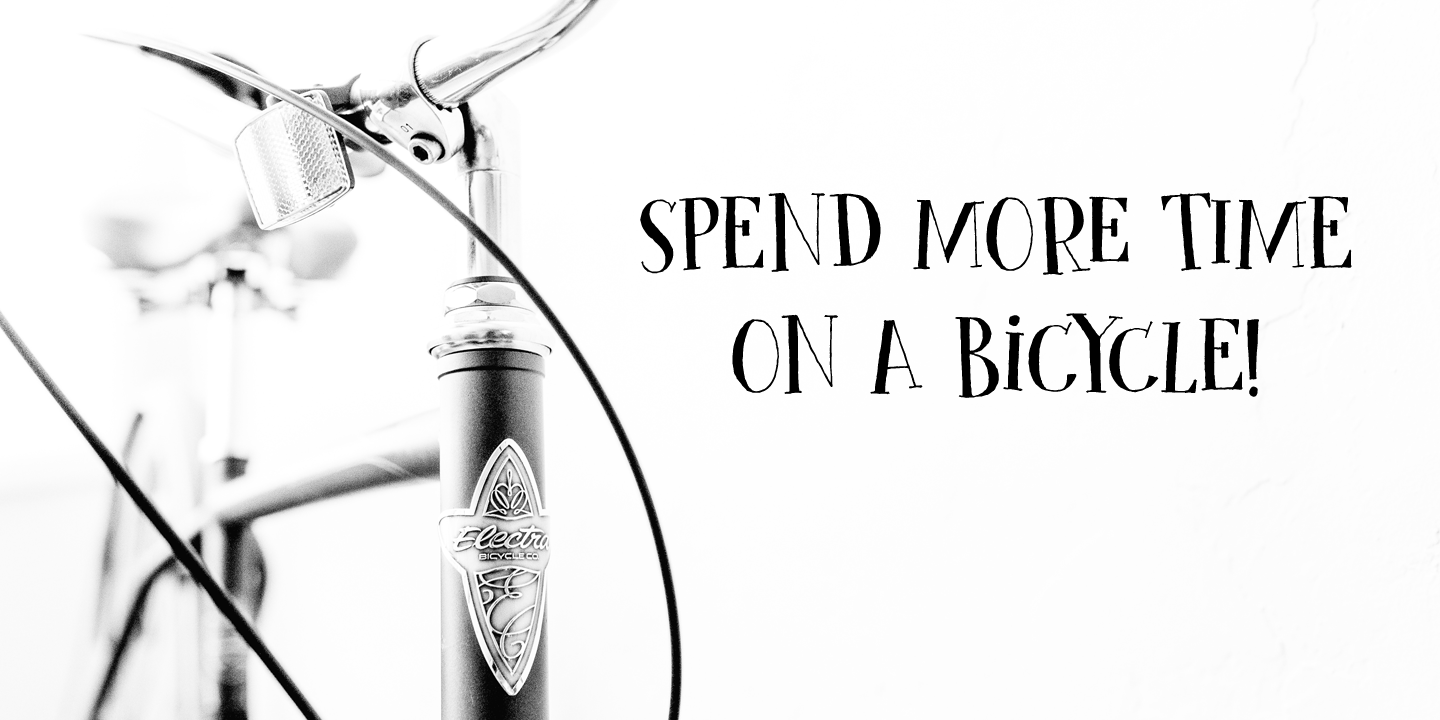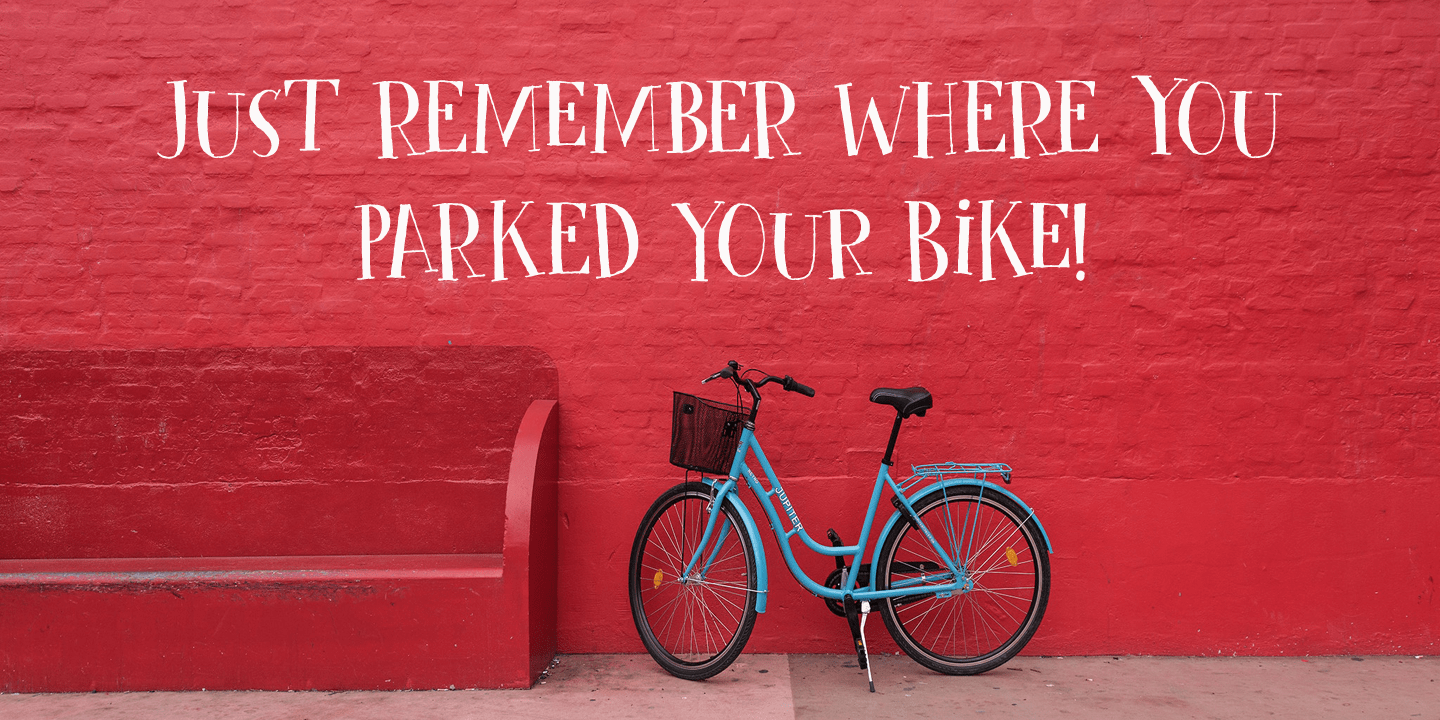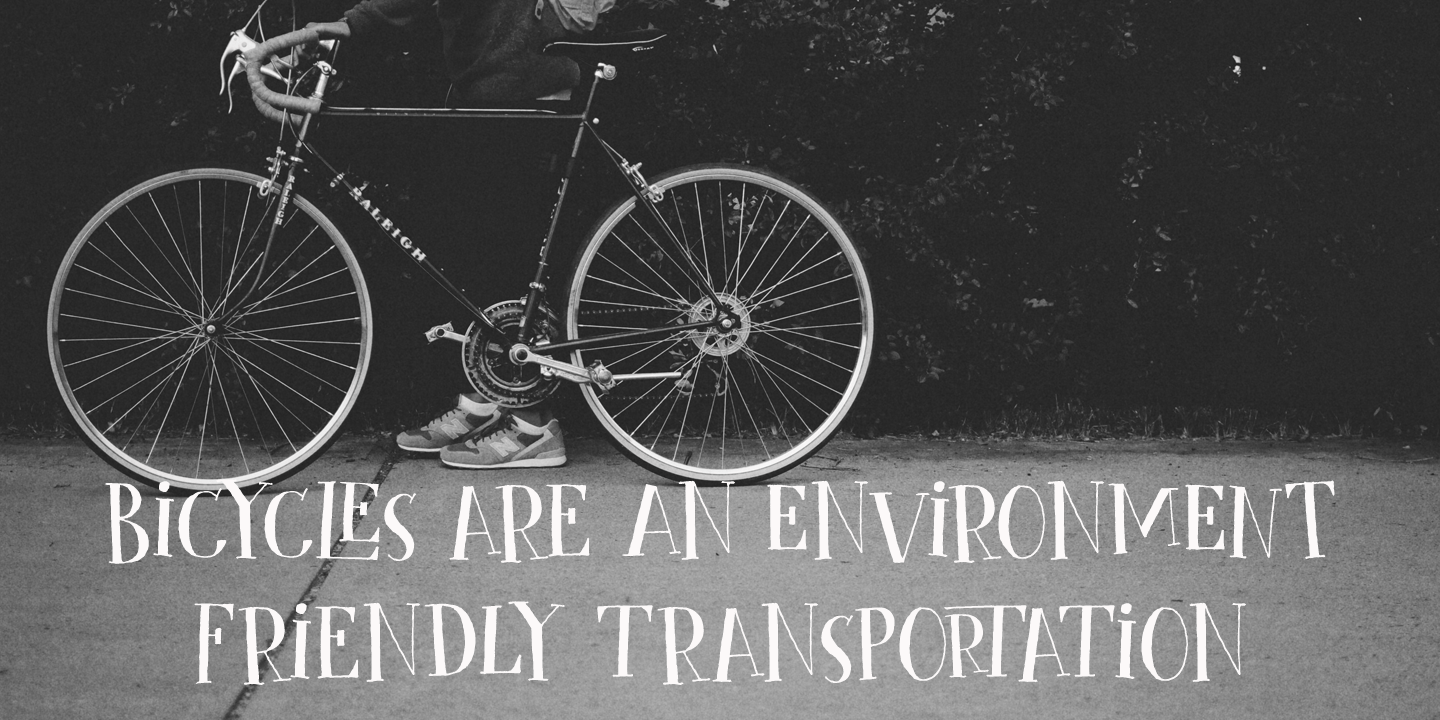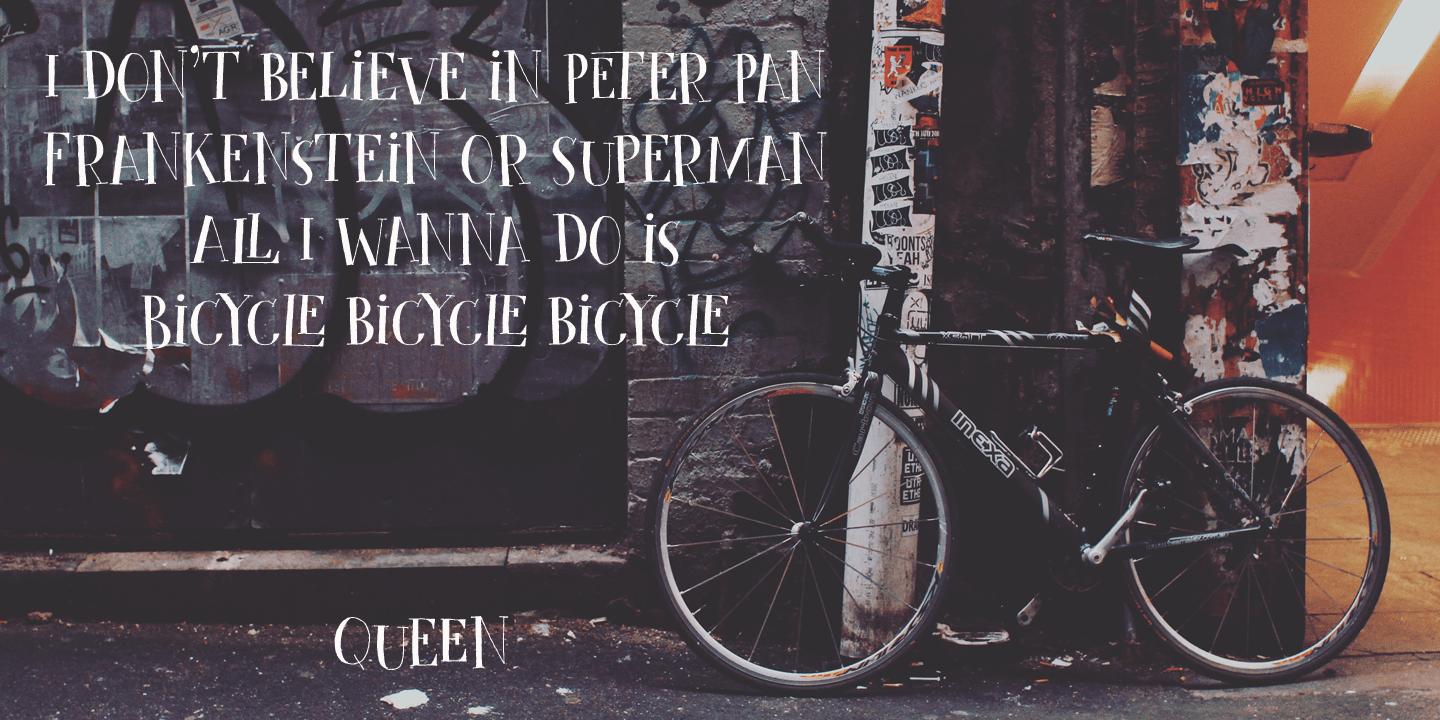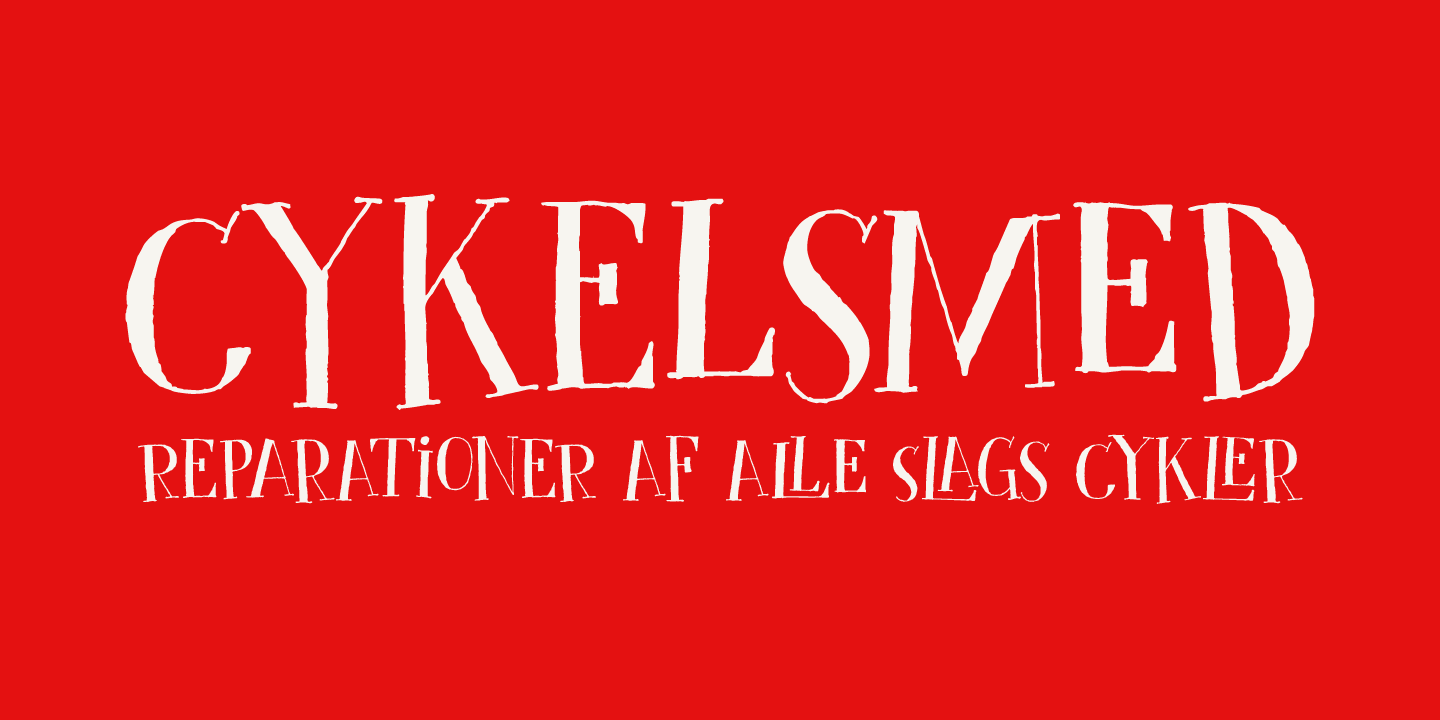
A cykelsmed in Danish is a bicycle repair man. This quirky font was more or less based on an older font of mine called Pinkus. It is a jumpy, happy book cover font and comes with a bunch of ligatures and all the diacritics you\’ll probably need.